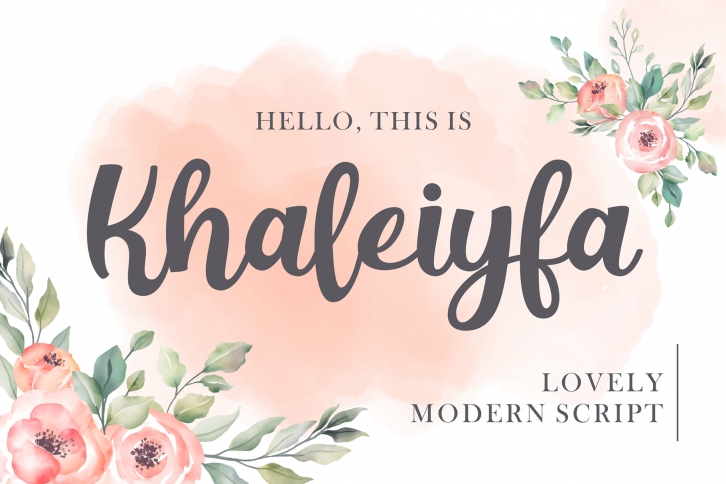
Khaleiyfa is a gorgeous font that was realeased on February 13, 2020. The font can be used in many style contexts and design environments. Perfect for invitations, magazines, websites, logos, and more! It was designed by figuree and the file size is 17.82 MB. Thanks for checking out this font!